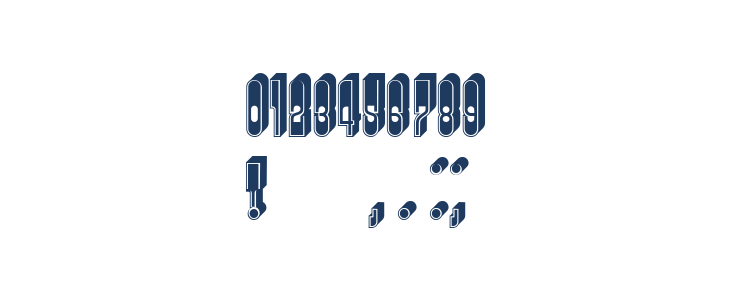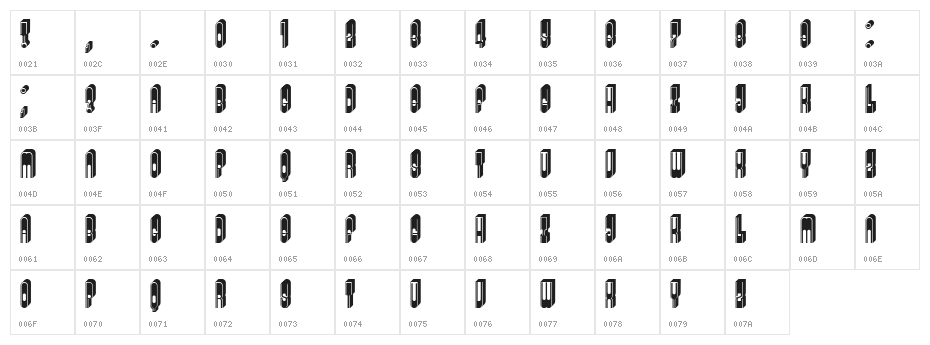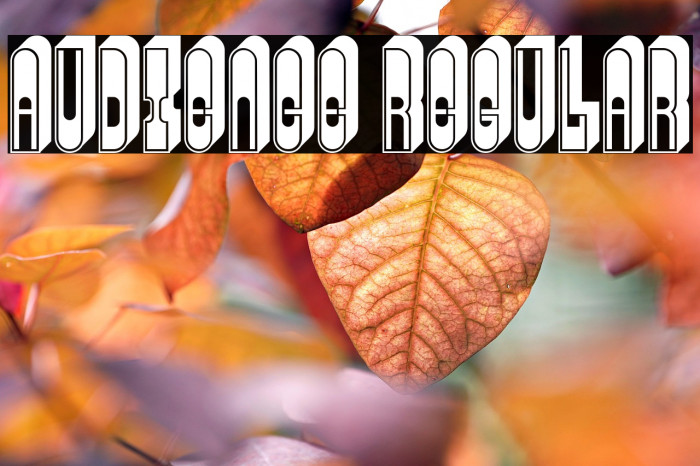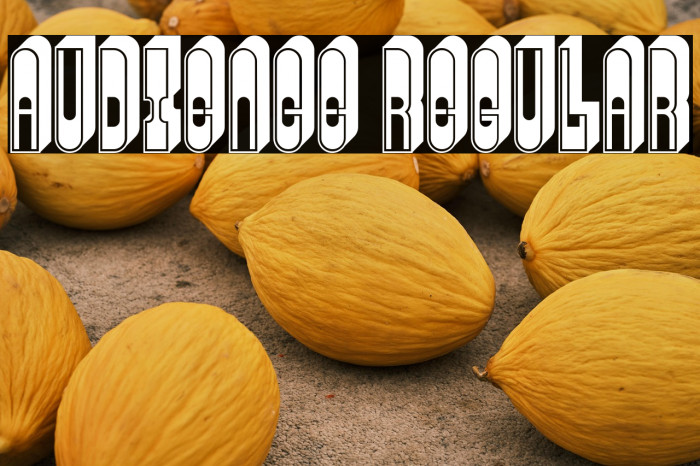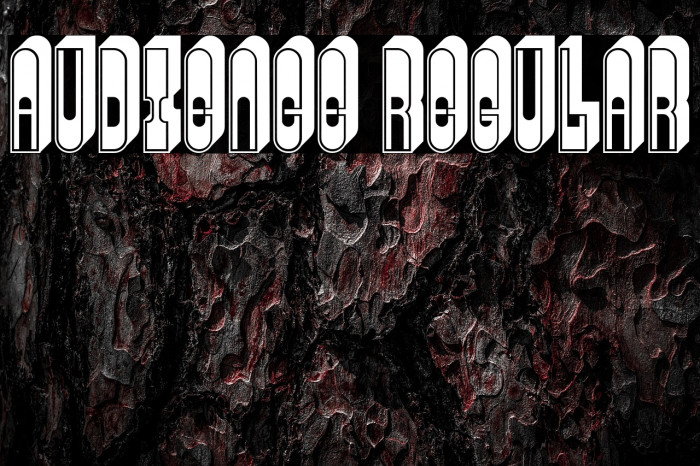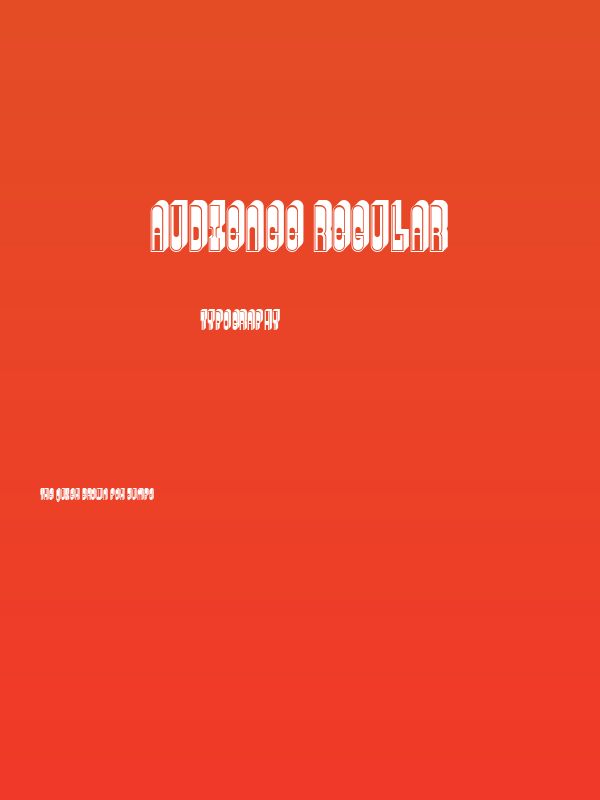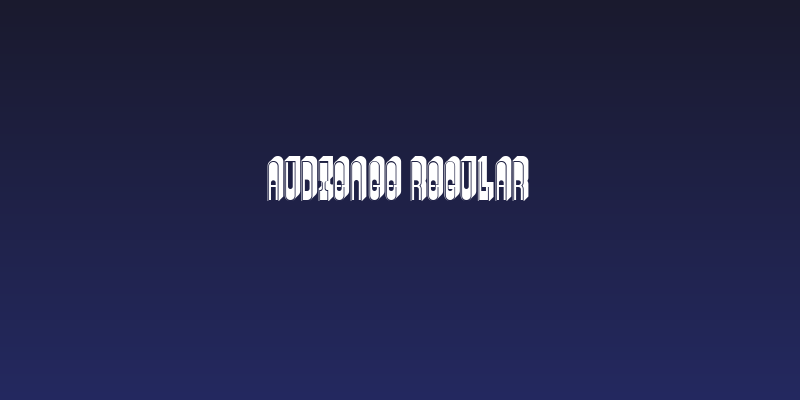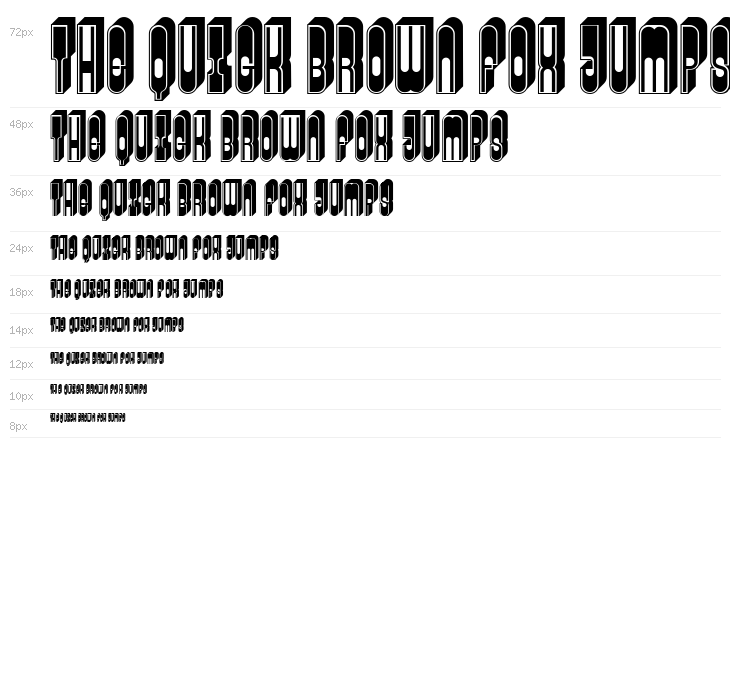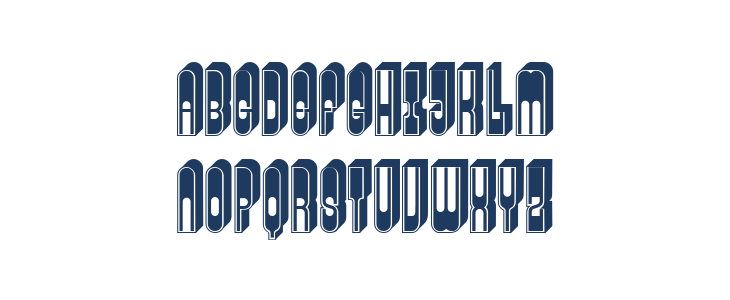
Audience Regular Font
Audience Regular Description
This font features a bold and striking design with a three-dimensional effect, characterized by thick, block-like letters that have a shadowed outline. The uppercase and lowercase letters maintain a consistent style, with geometric shapes and sharp angles that create a sense of depth and dimension. The numbers and special characters follow the same bold and impactful aesthetic, making them stand out prominently. This font is designed to capture attention and convey a sense of modernity and strength.
| Proposed Projects | Ideal for posters, headlines, branding, and any design project that requires a strong visual impact. |